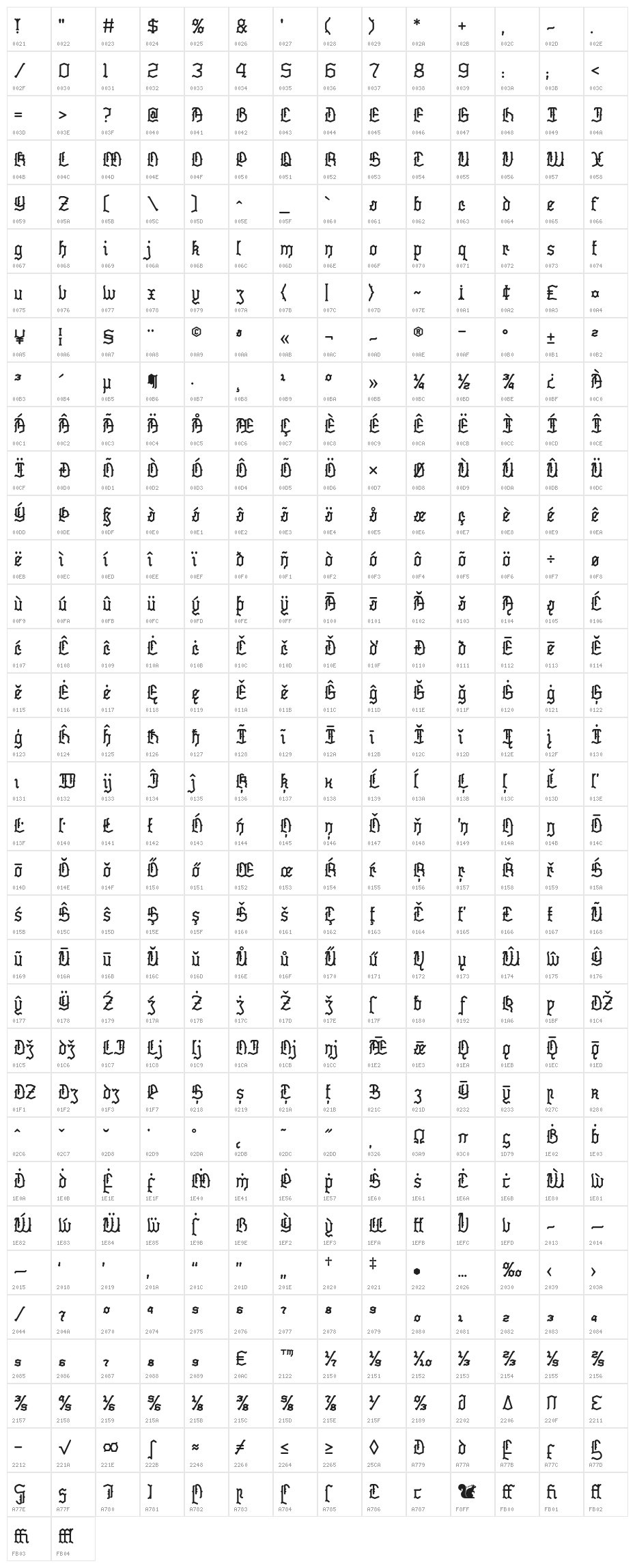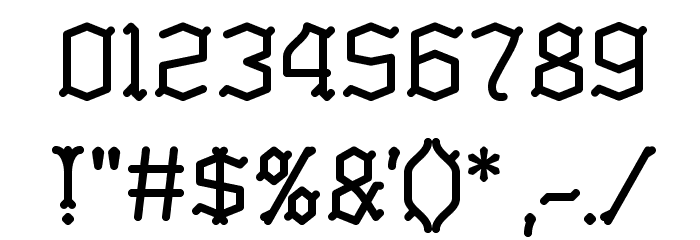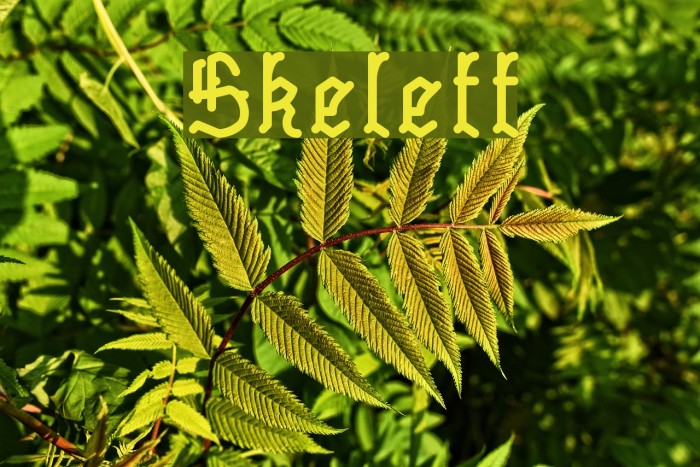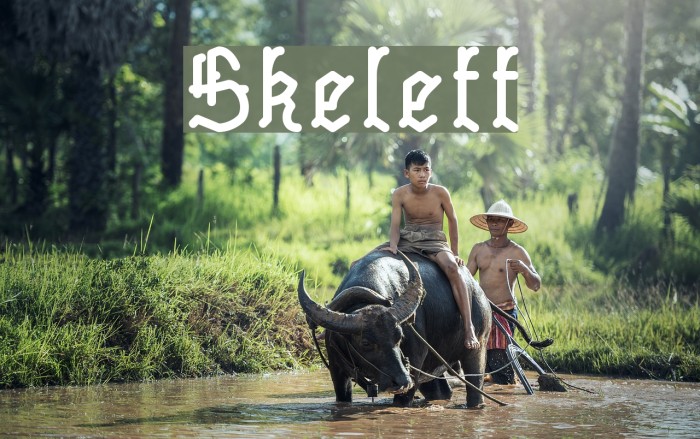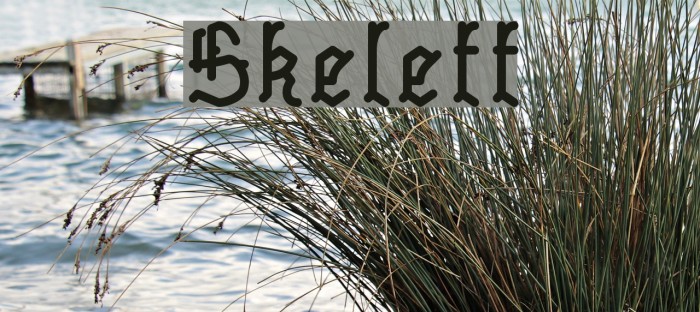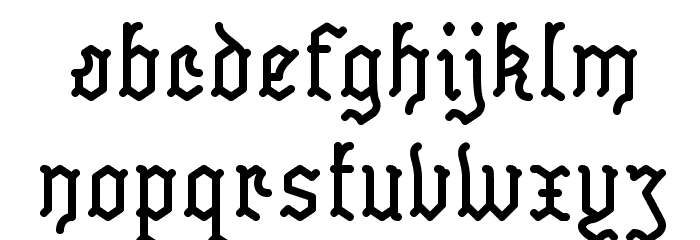
Skelett Font
Skelett Description
This font features a distinctive Gothic style with sharp, angular lines and a bold presence. The uppercase letters are particularly striking, with intricate details that evoke a medieval manuscript feel. The lowercase letters maintain the same angularity, providing a cohesive look across the typeface. Numbers and special characters are designed with the same attention to detail, ensuring consistency throughout. The overall appearance is both dramatic and elegant, making it suitable for projects that require a historical or fantasy aesthetic.
| Proposed Projects | Ideal for use in fantasy book covers, historical event posters, or themed invitations. |